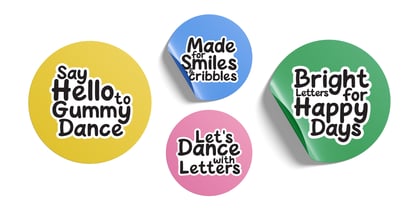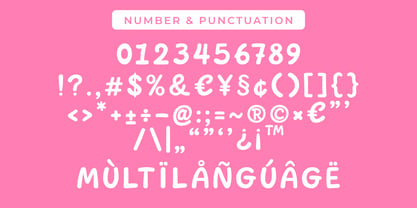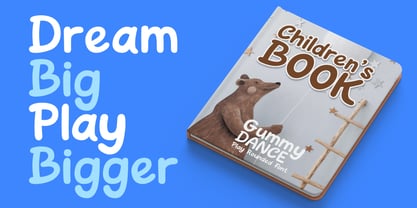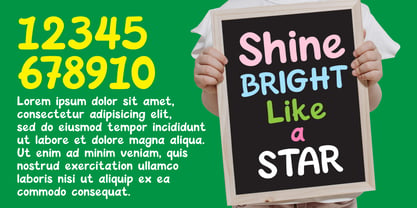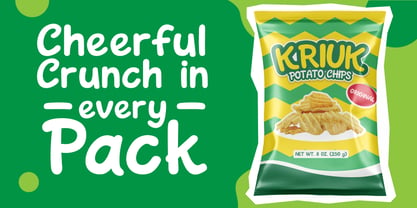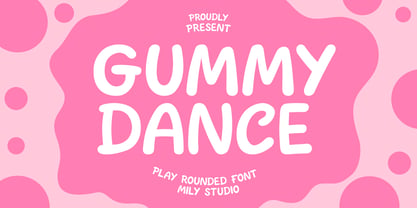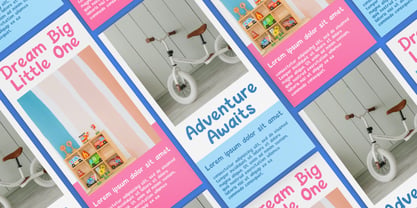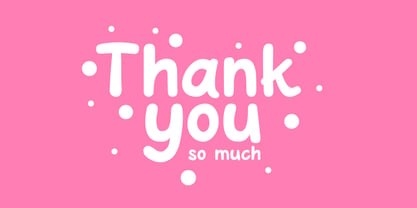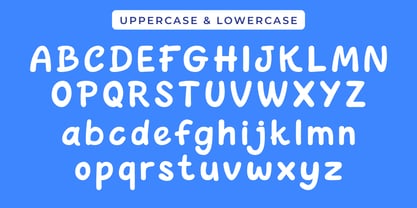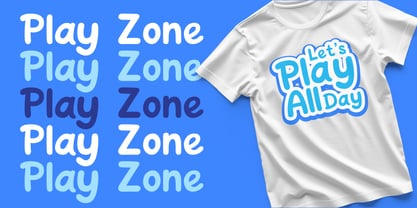
Gummy Dance
by Mily Studio
The Gummy Dance Font Family was designed by and published by Mily Studio. Gummy Dance contains 1 styles. More about this family
Gummy Dance is a fun and playful rounded font designed to spark joy in every letter. With its soft curves and bubbly shapes, this font feels friendly, lighthearted, and full of energy. It’s perfect for children’s books, toy packaging, birthday invitations, logos, and anything that needs a cheerful touch. Inspired by candy, cartoons, and the happiness of childhood, Gummy Dance adds a lively vibe to your creative work. Let your words dance and smile with this charming, feel-good font.